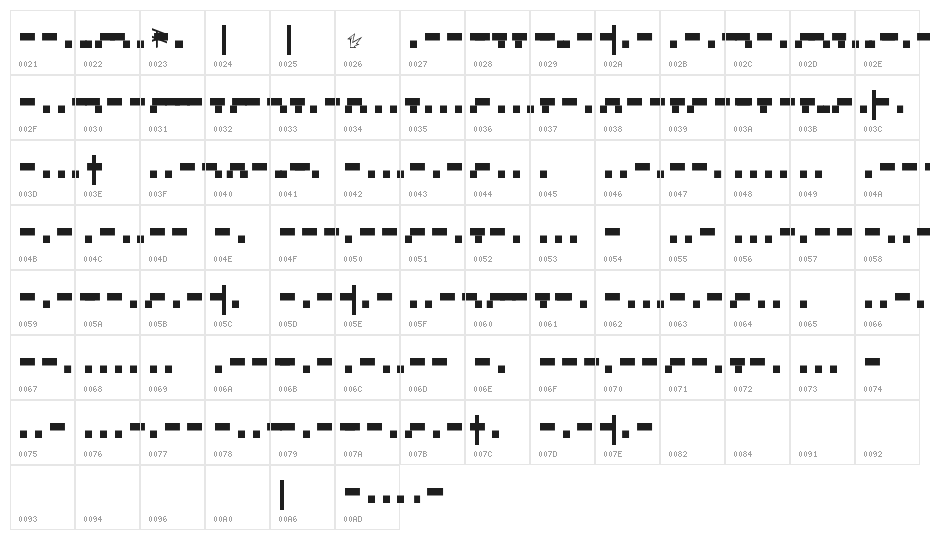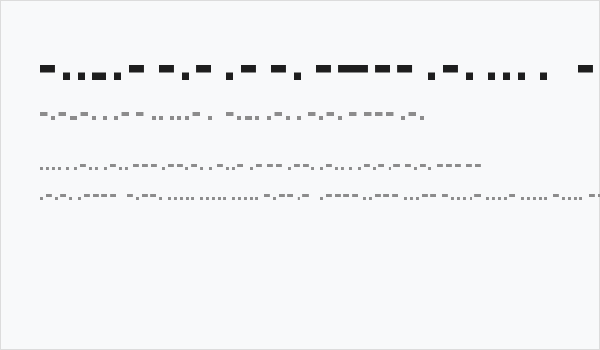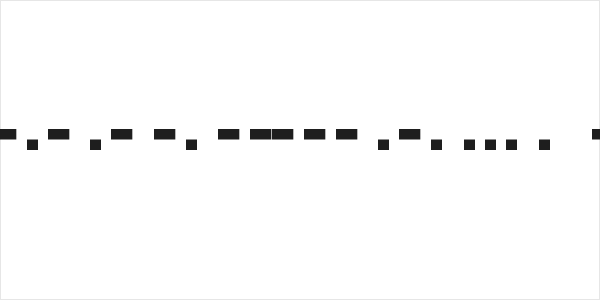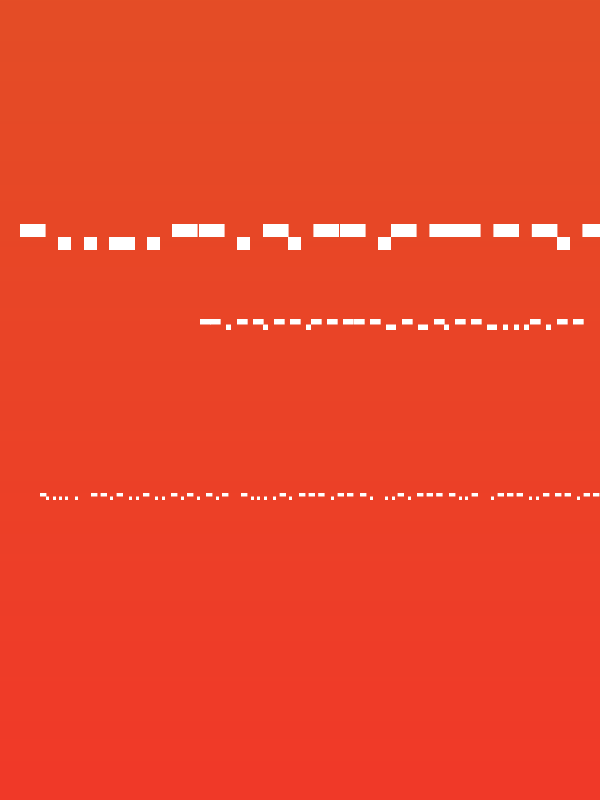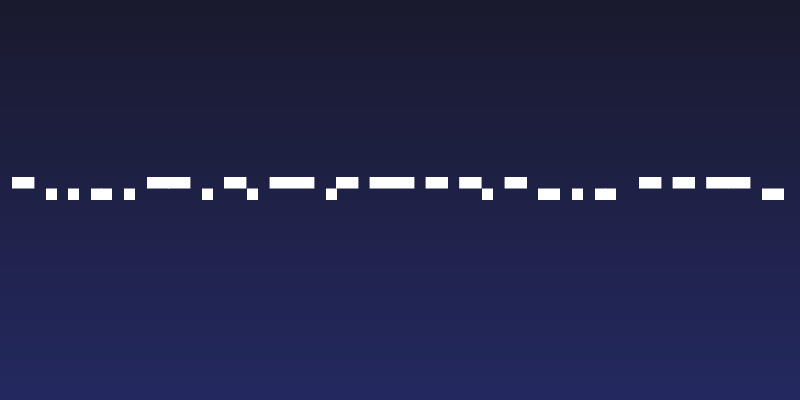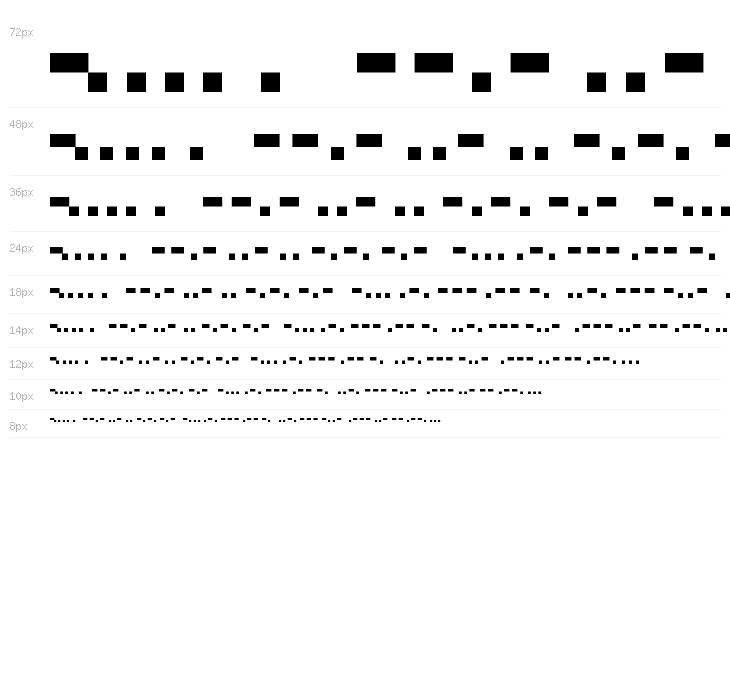
BukanMorse One Font
BukanMorse One Description
This design is a creative representation of characters using a Morse code style. Each letter and number is depicted through a series of dots and dashes, mimicking the classic Morse communication system. The characters are evenly spaced, maintaining a consistent rhythm that is visually intriguing. This design is not a traditional font but rather an artistic interpretation of Morse code, making it unique and suitable for specific thematic projects.
| Use Case | Art projects, educational materials, themed designs. |
| Proposed Projects | Ideal for educational materials on Morse code, themed event invitations, or creative art projects that require a unique and unconventional character representation. |